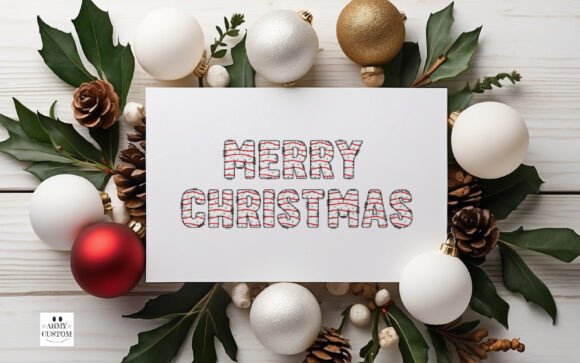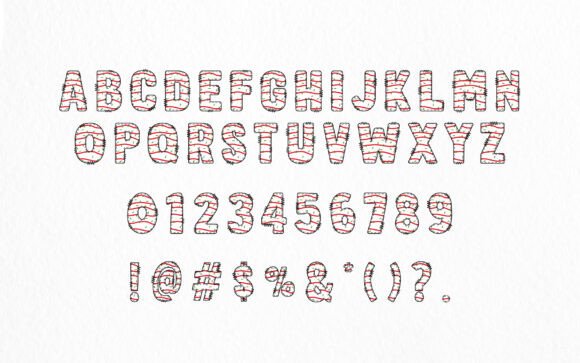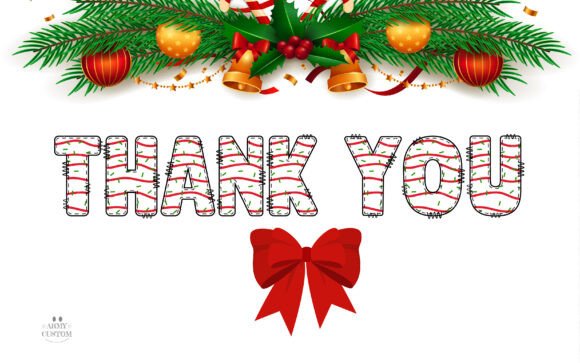
Deck the Halls with Typographic Cheer
It’s that time of the year when creativity knows no bounds, and the world becomes a canvas of festive magic. As you sit down to design your holiday cards, gift tags, or even a festive menu, you know the feeling – the perfect font can make all the difference. And that’s where the Christmas Cake Army Font comes in – a typographic treasure that’s sure to spread holiday cheer with every keystroke.
This delightful font is more than just a decorative addition to your design palette; it’s a statement piece that turns texts into visually appealing works of art. Whether you’re a seasoned designer or a crafting enthusiast, the Christmas Cake Army Font is a valuable addition to your toolkit, bringing a splash of color and whimsy to your creations.
Christmas Cake Army Font Key Features
- Font Family: Christmas Cake Army Font is a unique and playful font family designed to evoke the spirit of Christmas.
- Unique Characteristics: Features festive and whimsical designs, including ornaments, snowflakes, and other holiday-themed elements, adding a touch of magic to your designs.
Designer Review: Christmas Cake Army Font
Overall, I’m impressed with the Christmas Cake Army Font. The design team has put in a lot of effort to create a unique and eye-catching font. Here are some things that stand out:
- ✨ Unique Character Set: The font has a wide range of characters, including various festive icons and symbols, making it perfect for holiday-themed projects.
- ✨ High-Quality Vectors: The font’s vectors are crisp and clean, allowing for easy scaling and manipulation in various design applications.
- ✨ Fun and Playful: The font’s playful design makes it ideal for projects that require a lighthearted and festive tone.
- ⚠️ Limited Language Support: The font only includes characters for the English language, which may limit its use for non-English projects.
- ⚠️ May Not be Suitable for Formal Projects: The font’s playful design may not be suitable for formal or professional projects, where a more serious tone is required.
Overall, I would recommend the Christmas Cake Army Font for projects that require a fun and festive tone. While it may have some limitations, the font’s unique character set and high-quality vectors make it a great choice for holiday-themed projects.
The Christmas Cake Army Font is ideal for festive designs, such as Christmas cards, gift tags, and party invitations. It’s also great for adding a touch of whimsy to your branding and marketing materials.
To get the most out of the Christmas Cake Army Font, experiment with different font sizes, colors, and combinations with other fonts. You can also use it to create a cohesive visual identity for your brand.